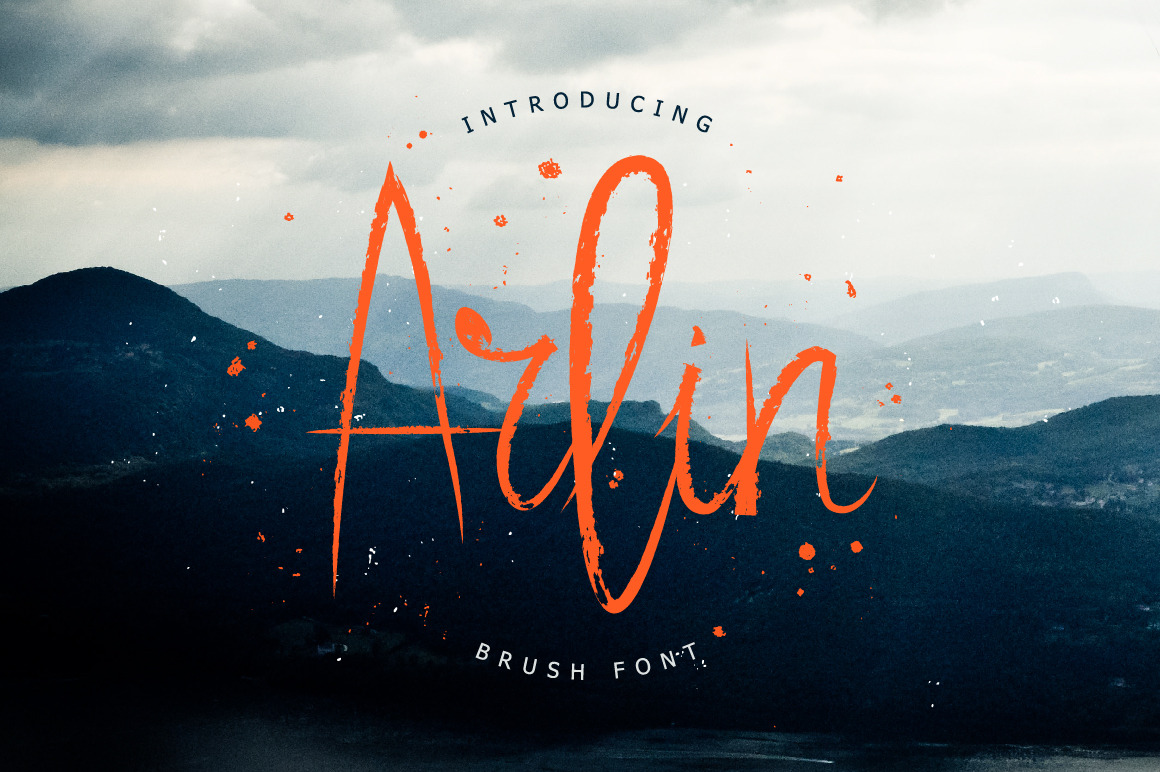
Arlin Brush Font
Arlin is a hand brushed font.
Comes with uppercase and lowercase characters, large set of punctuation glyphs, numerals, and supports international language.